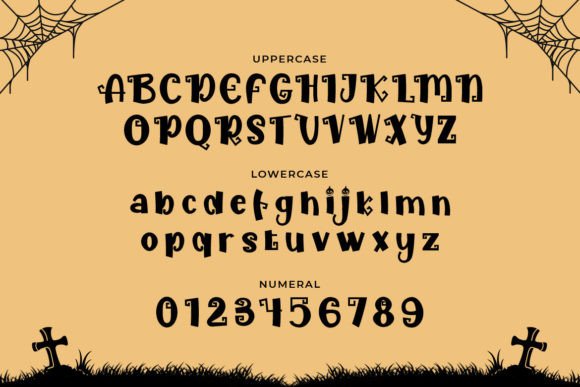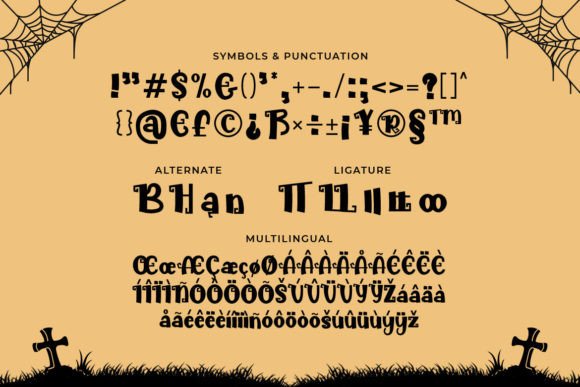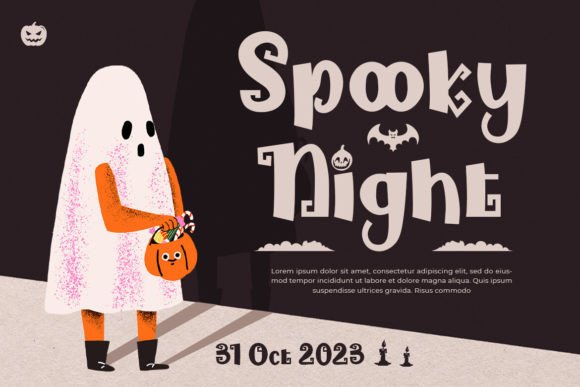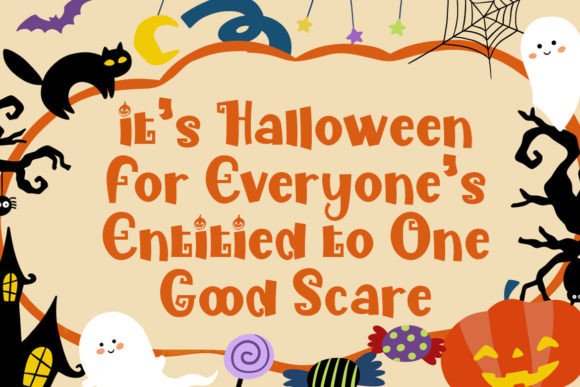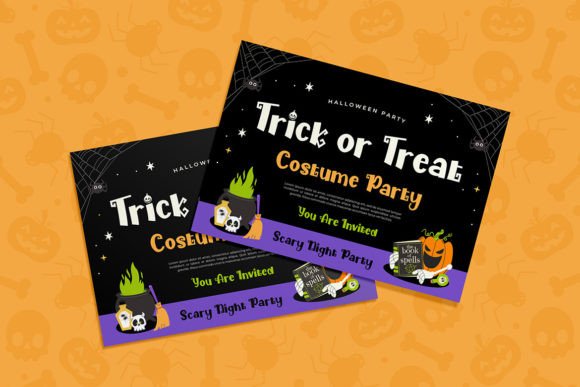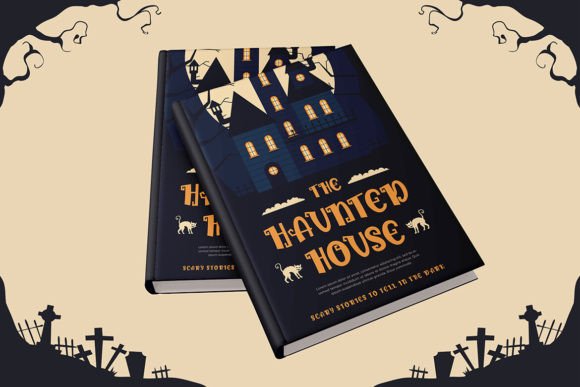
Introduction to Niscarie Font
As a designer, there’s nothing quite like that moment when a single font can elevate your entire project. For me, it was the Niscarie Font – a quirky, whimsical display font that perfectly captured the essence of playful horror. I was working on a Halloween-themed campaign and was struggling to find the right font to convey the spooky yet lighthearted tone. That’s when I stumbled upon Niscarie, and everything changed. With its eerie charm and quirky letterforms, Niscarie Font brought my design to life in a way that no other font could.
As a valuable design resource, Niscarie Font offers a unique twist on horror-themed projects. Its transparent background and high-quality design make it the perfect addition to any creative project. Whether you’re working on a haunted house flyer or a Halloween invitation, Niscarie Font is sure to add a touch of whimsy and fun to your design. And the best part? It’s available for free download, making it an accessible and affordable option for designers of all levels.
Key Features of Niscarie Font
- Available in a single font style with multiple weights, providing flexibility for different design applications.
- Perfect for use in graphic design, digital art, and other creative projects where a modern and stylish font is required.
Honest Review: Niscarie Font
As a designer, I’m always on the lookout for high-quality design resources to elevate my creative projects. The Niscarie Font is one such resource that caught my attention. I was excited to dive in and see if it lived up to its promise.
What works well: ✨ The Niscarie Font has a unique, elegant feel to it that makes it perfect for a wide range of design projects. The font is highly versatile and can be used for both personal and professional projects. Additionally, the transparent background makes it easy to use in various design scenarios.
- High quality: The font is well-designed and looks great at various font sizes.
Limitations: ⚠️ While the Niscarie Font is a great resource, it’s worth noting that it may not be suitable for all design projects. The font’s unique style may not be to everyone’s taste, and it may not be the best choice for projects that require a more traditional or formal look.
Overall impression: I’m impressed with the Niscarie Font and would recommend it to designers looking for a unique and high-quality font to add some creativity to their projects. While it may not be suitable for every project, it’s a great addition to any designer’s toolkit.
The Niscarie Font is a high-quality, free download design resource ideal for creative projects requiring a unique touch. Its transparent background makes it versatile for use in various applications.
Common Use Cases for Niscarie Font
The Niscarie Font is ideal for:
1. Social media graphics and posts.
2. Marketing materials and brochures.
3. Logo design and branding.
4. Infographics and presentations.